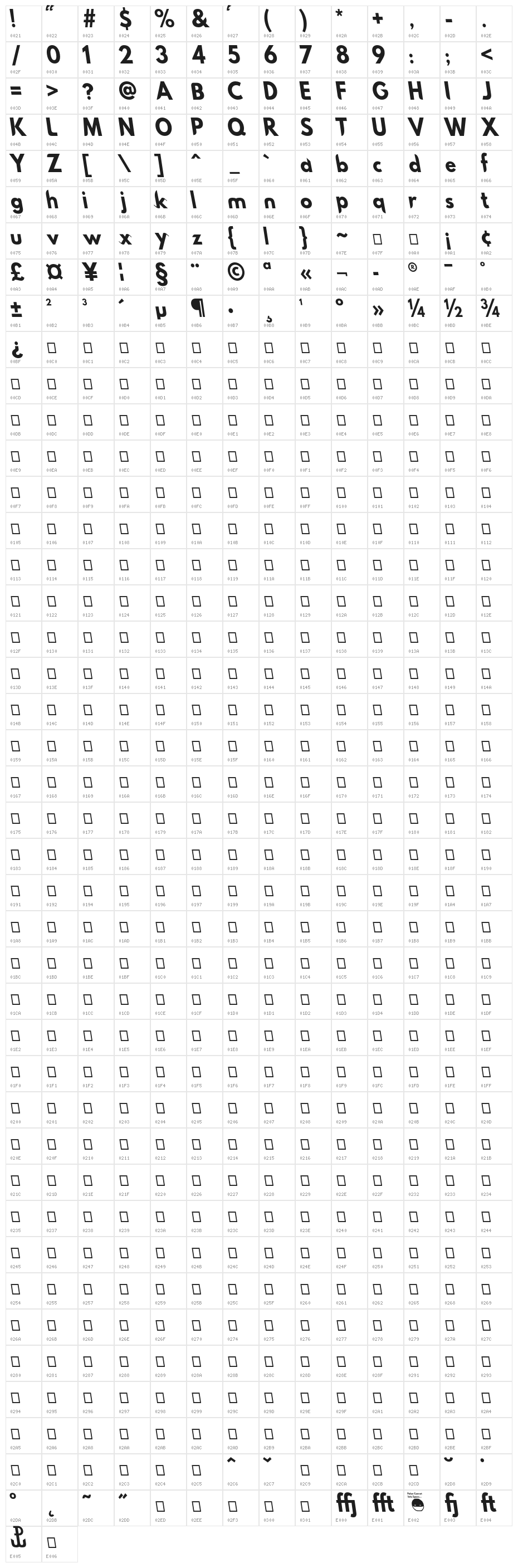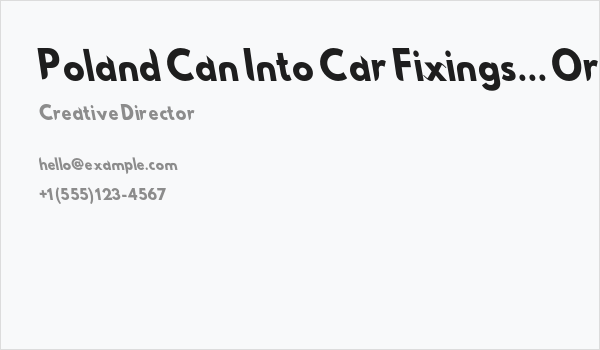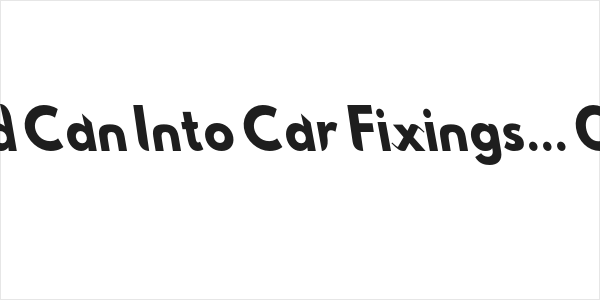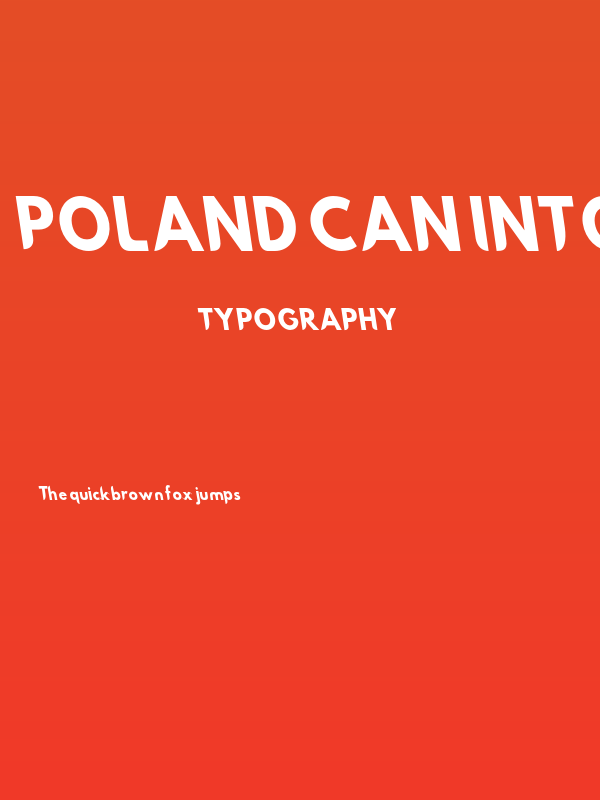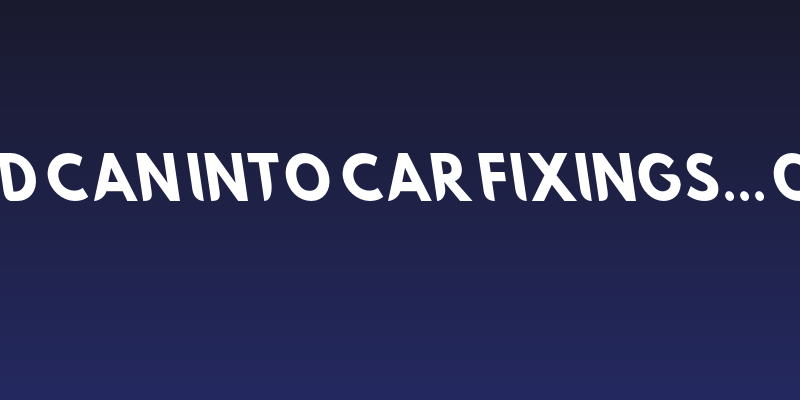
Poland Can Into Car Fixings... Or Not Font
Poland Can Into Car Fixings... Or Not Description
This font features bold, rounded characters with a playful and modern aesthetic. The uppercase letters are slightly wider than the lowercase, giving a sense of stability and strength. The lowercase letters maintain a consistent roundness, contributing to a friendly and approachable appearance. Numbers are bold and clear, ensuring readability. Special characters are well-integrated, maintaining the overall style. The font's design is versatile, making it suitable for various applications where a modern and engaging look is desired.
| Use Case | Headlines, Logos, Advertising |
| Proposed Projects | Ideal for branding, advertising, children's books, and digital media where a friendly and modern look is needed. |